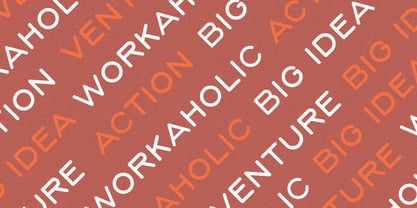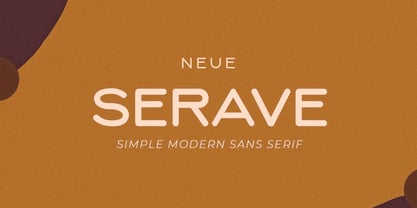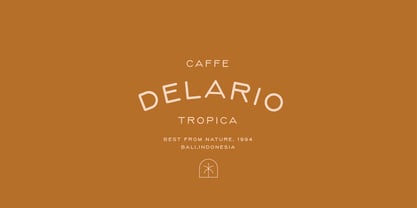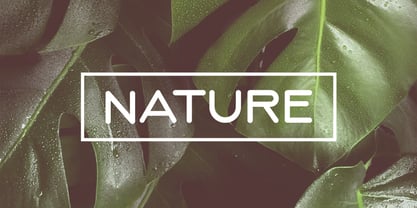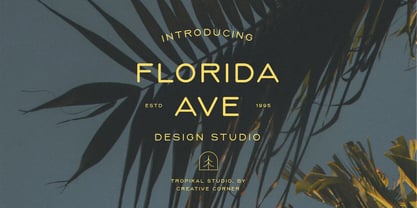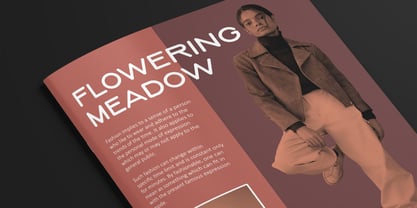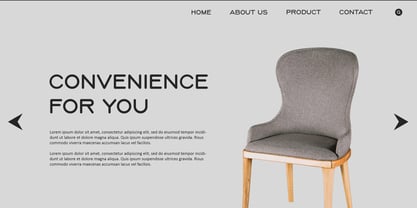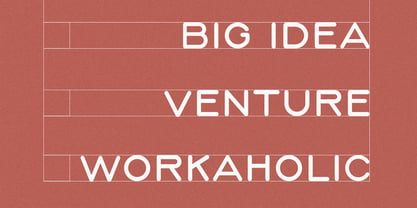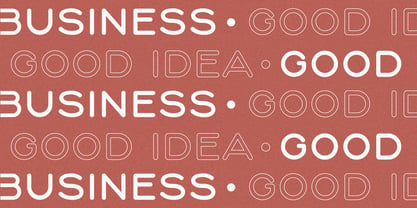
CCS Neue Serave
by Creative Corner Studio
The CCS Neue Serave Font Family was designed by Kurt Harahap and published by Creative Corner Studio. CCS Neue Serave contains 3 styles and family package options. More about this family
Serave is a modern soft-rounded serif typeface crafted to bring a warm, inviting, and sophisticated charm to your brand identity and creative projects. Featuring uniquely smooth rounded terminals, subtle high-contrast curves, and a full suite of expressive ligatures and alternates, Serave offers a cozy yet refined aesthetic for organic skincare labels, artisanal bakeries, and chic lifestyle design
Designers: Kurt Harahap
Foundry: Creative Corner Studio